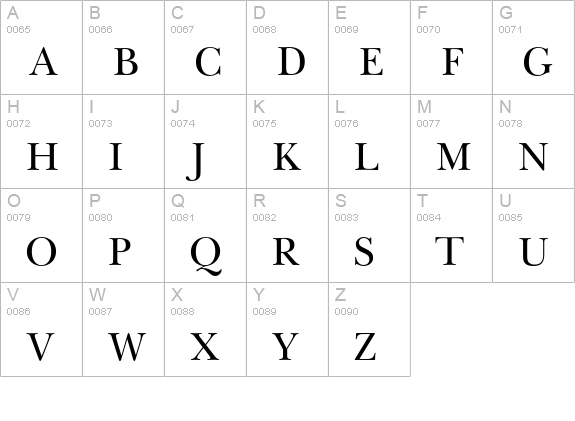
Baskerville Font Details
Baskerville font is a timeless classic that exudes elegance and sophistication. With its tall, slender letterforms and sharp serifs, this typeface is perfect for conveying a sense of refinement and professionalism. The high contrast between thick and thin strokes gives Baskerville a distinctive and eye-catching appearance that is sure to make your designs stand out. What's even better is that Baskerville font is available for free download at FontsMarket.com. This means you can easily access this beautiful typeface and use it in your projects without any cost. Whether you're working on a print design, website, or any other creative endeavor, Baskerville font is a versatile choice that will elevate your work to the next level. Don't miss out on the opportunity to enhance your designs with this exquisite font, download Baskerville today for free!